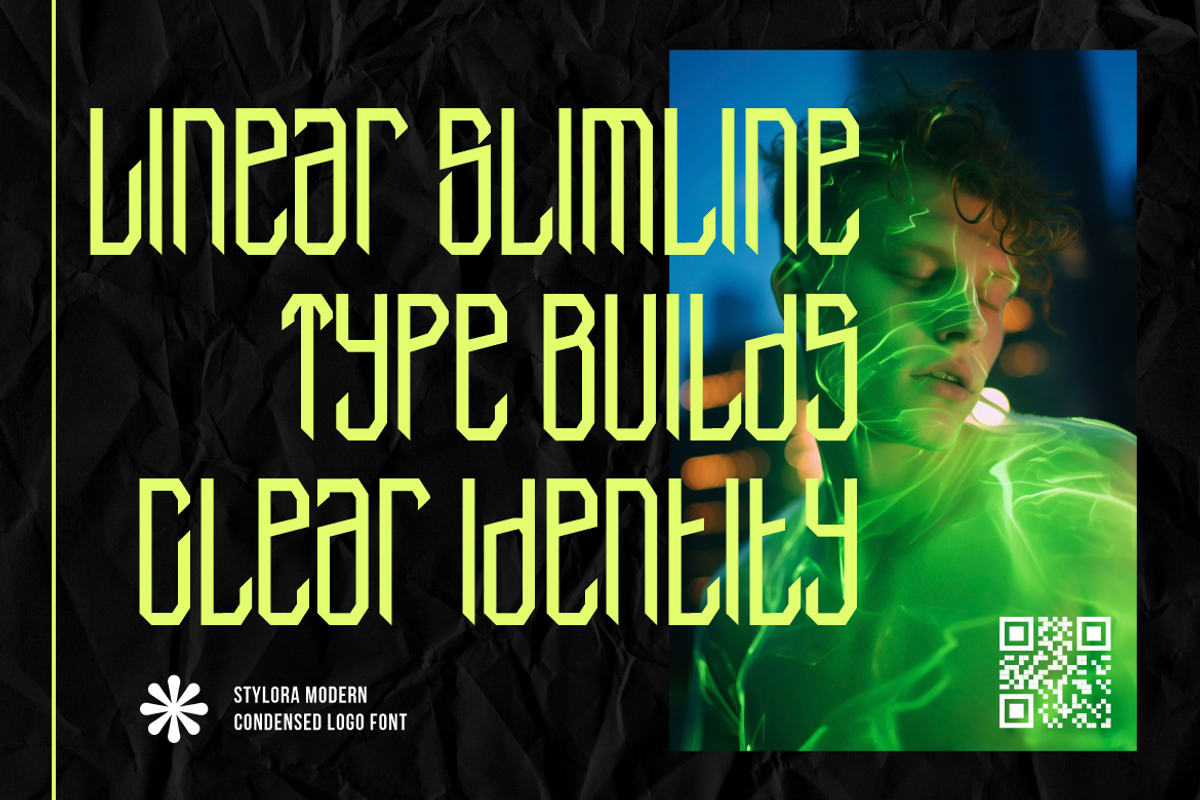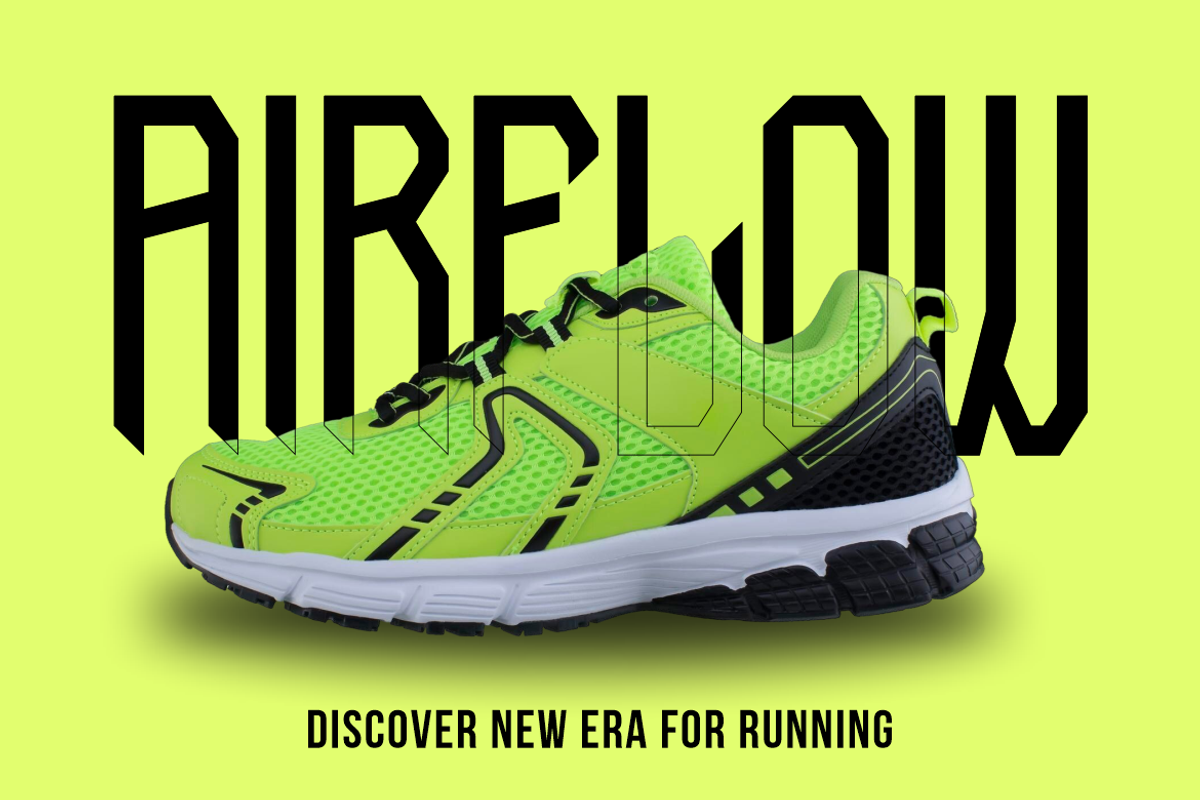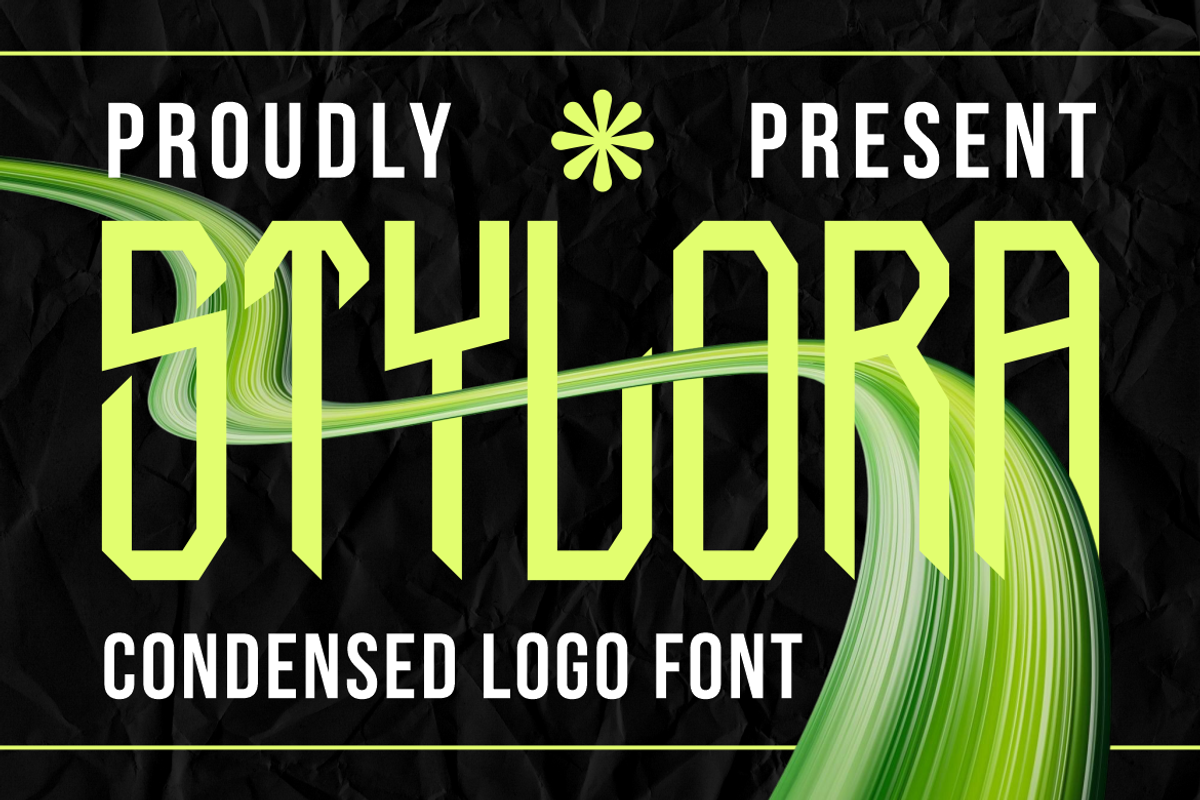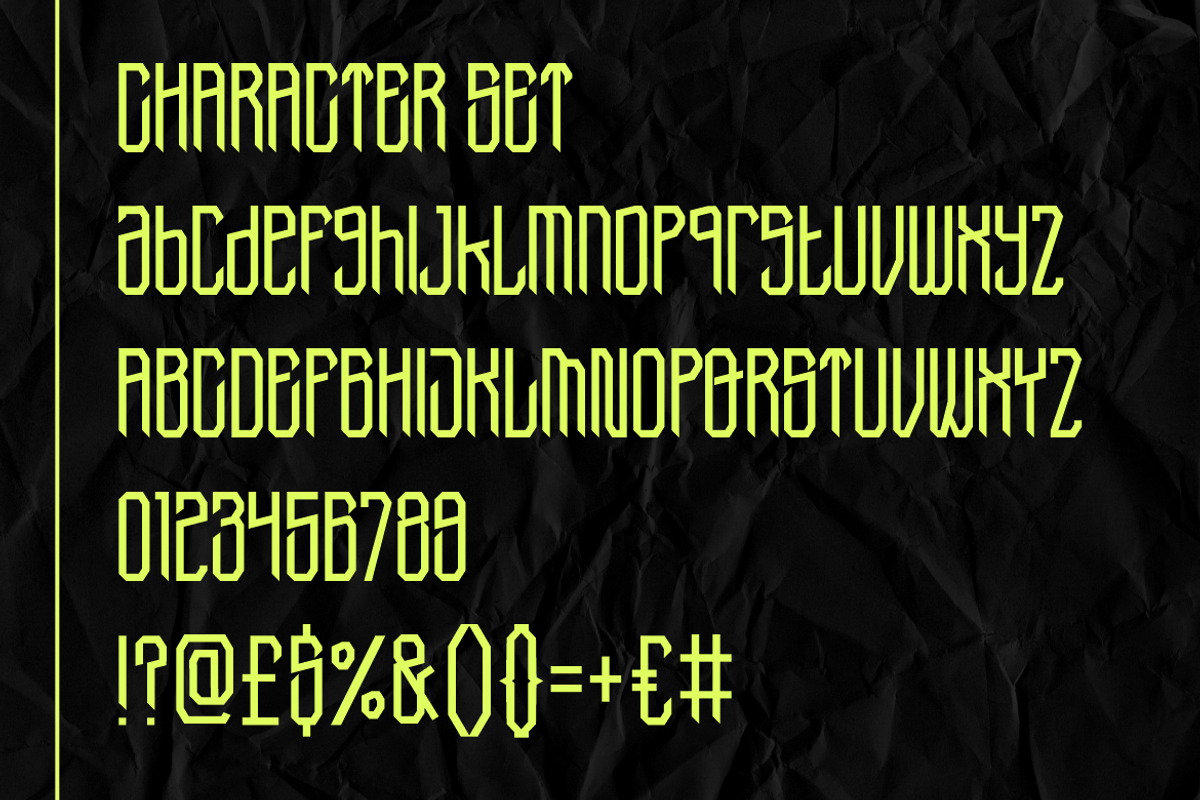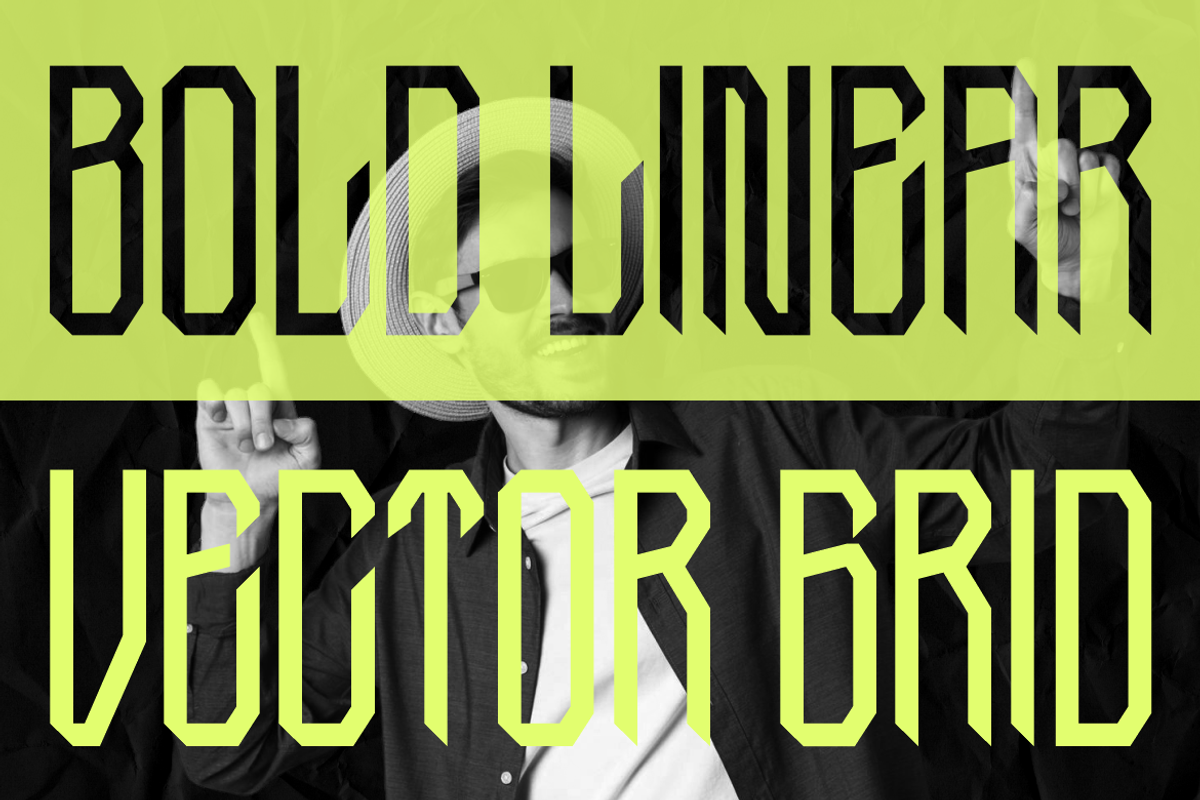
Stylora Condensed Logo Font
Stylora Condensed Logo Font is a modern typographic innovation built for impact and precision. Designed with a vertically extended, slimline silhouette, each character exhibits a futuristic elegance that effortlessly blends angular geometry with stylish legibility. The letterforms feature sharp diagonal cuts and clean vertical strokes, giving the font a bold, commanding presence without compromising space efficiency. The consistent weight, hexagonal corners, and sharp apexes amplify its technological aura—making it ideal for logos, packaging, and digital branding in modern, sci-fi, or high-performance themes.
Every glyph in Stylora has been thoughtfully sculpted to maintain visual consistency while evoking a sleek, high-tech identity. The font thrives in monochrome, neon, or gradient environments, adapting well to digital and print media alike. Whether you’re designing for athletic shoes, esports visuals, movie titles, or fashion-forward labels, Stylora delivers clarity, speed, and futuristic sophistication in one compact package. Its condensed structure ensures maximum readability in narrow layouts, while its distinctive style guarantees brand memorability. Designed not just to be seen, but to be remembered.